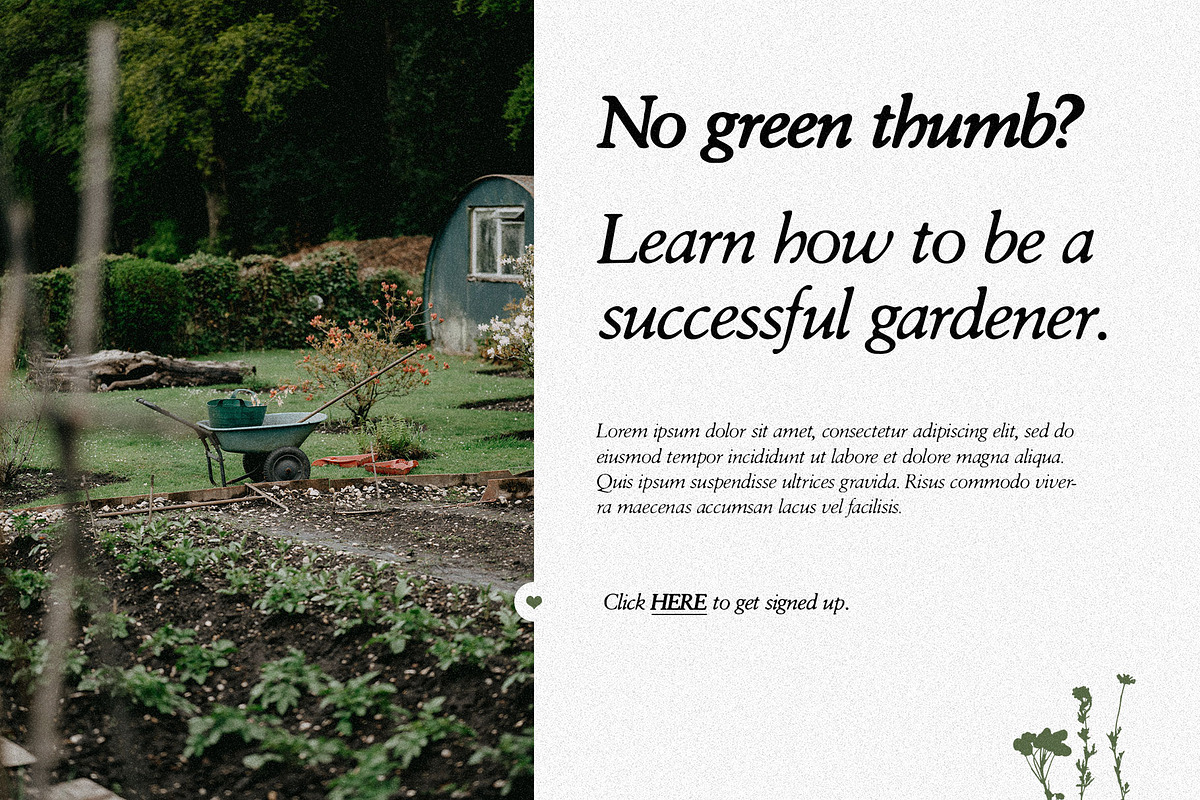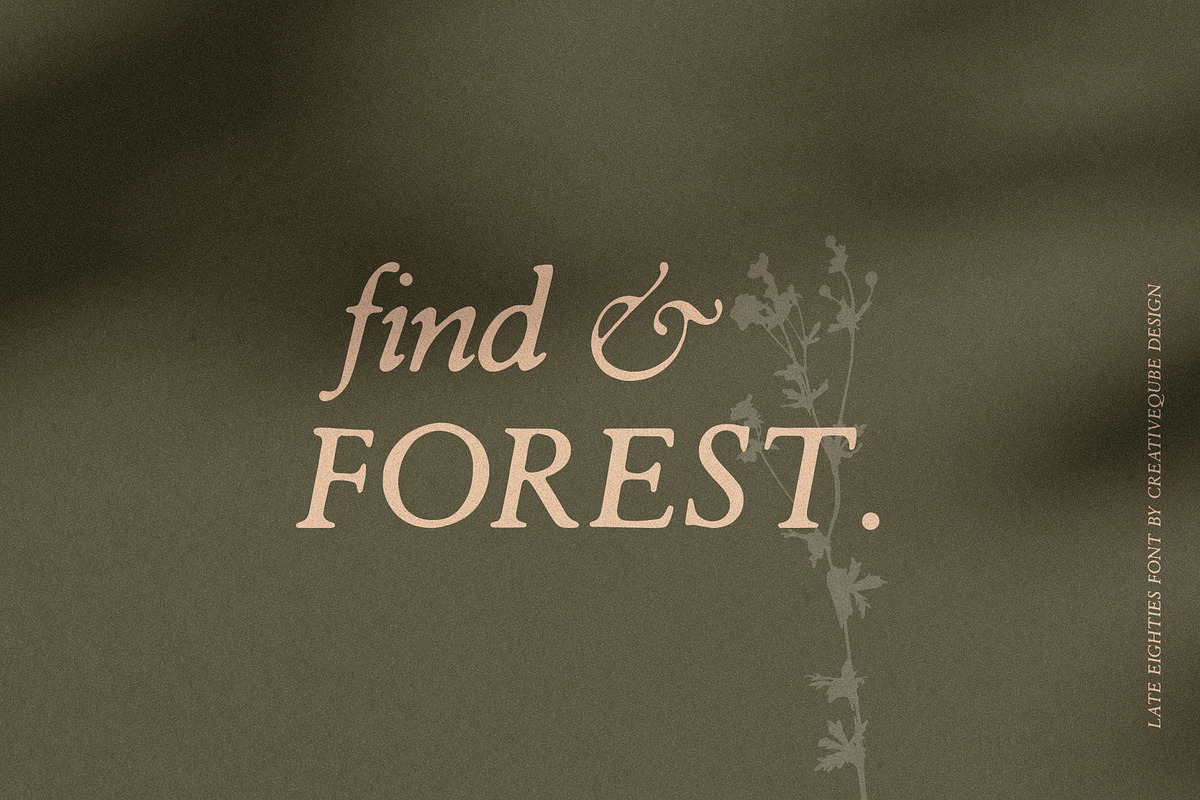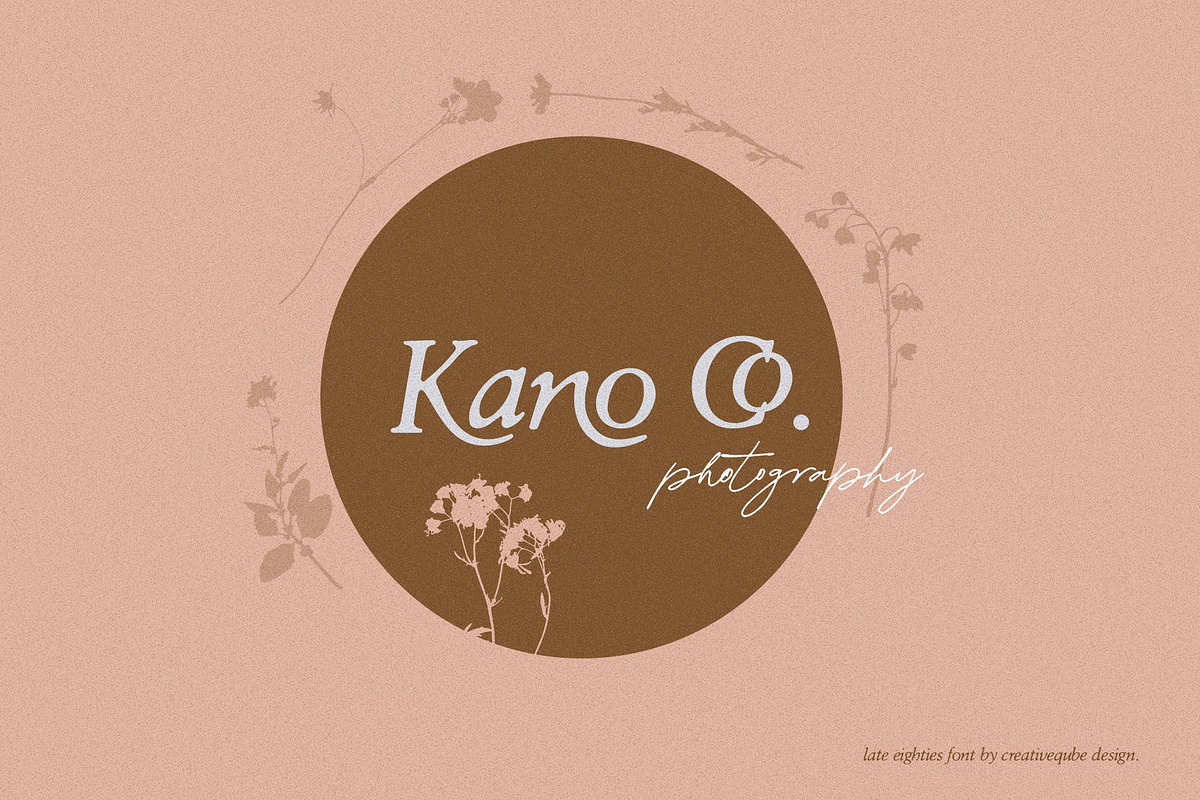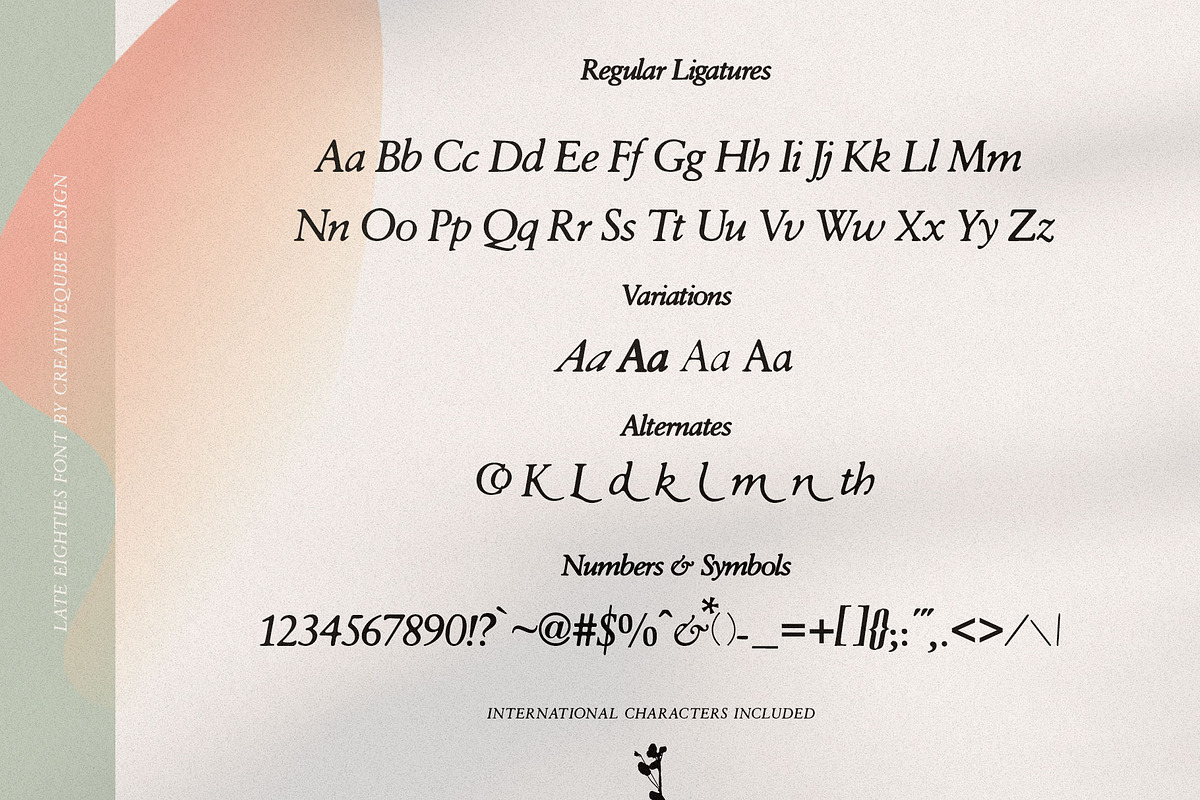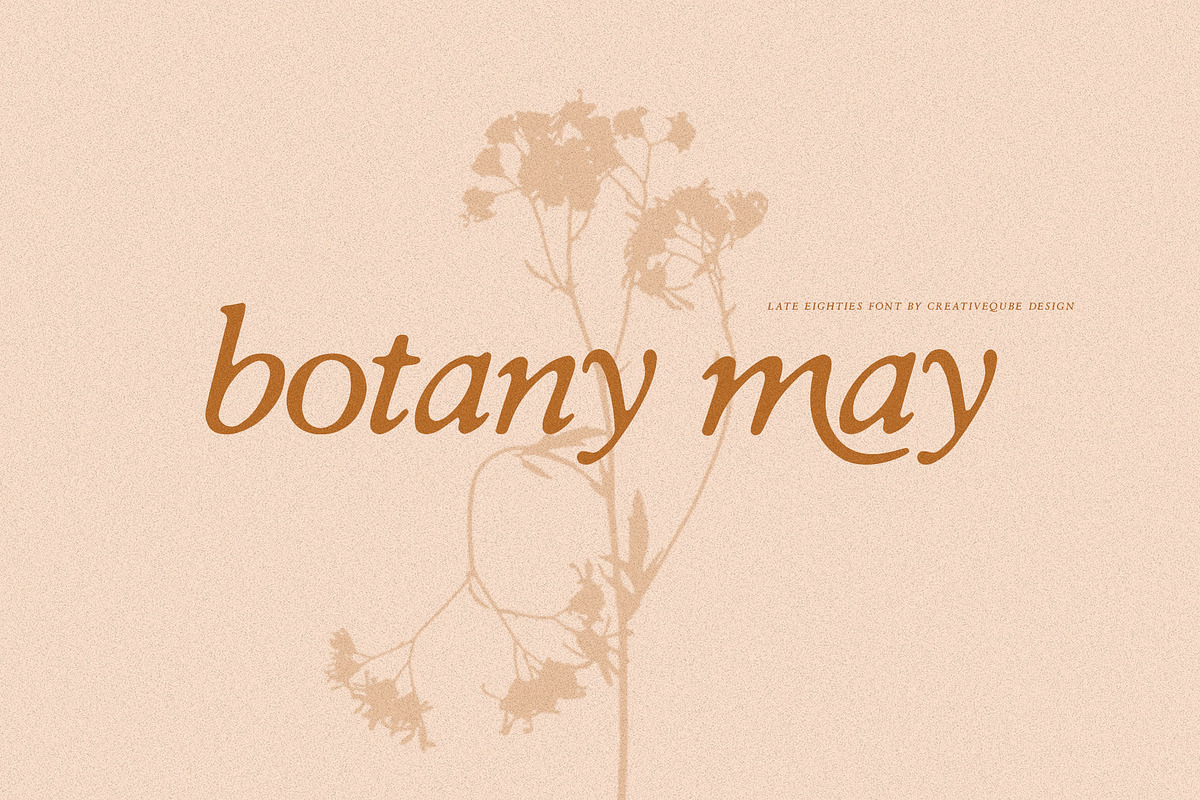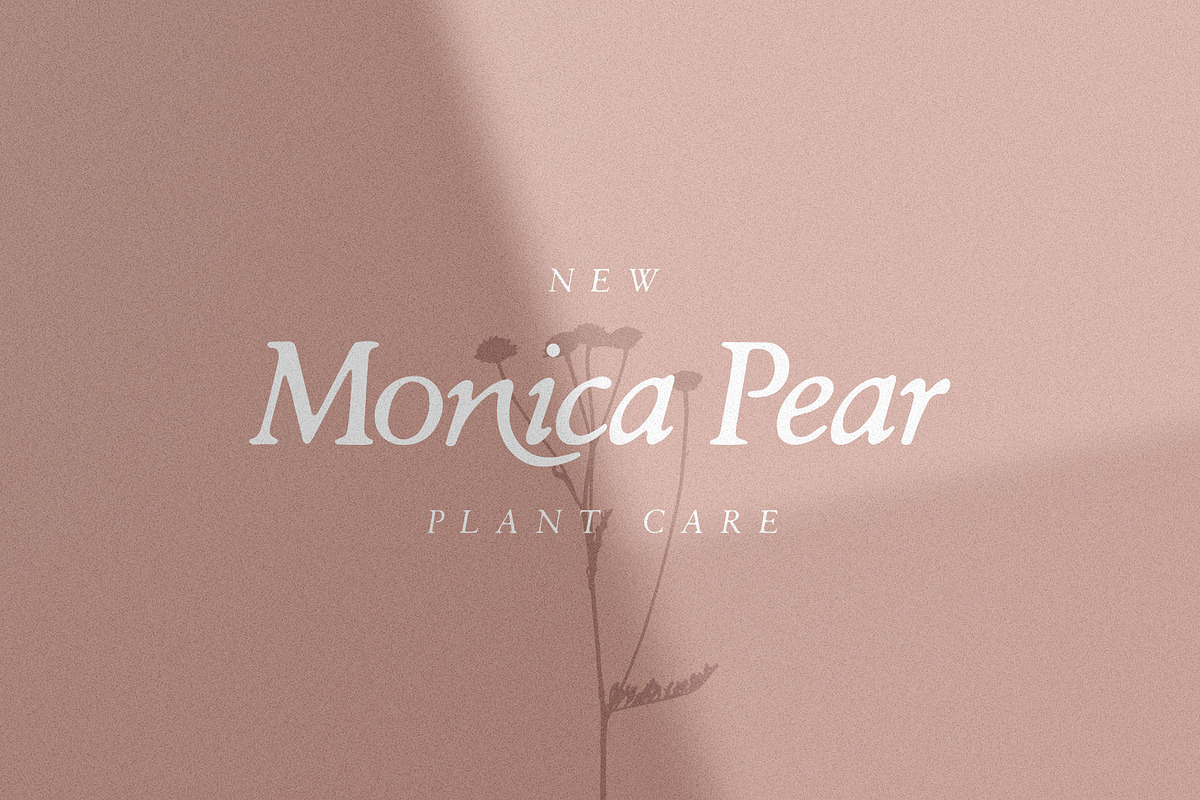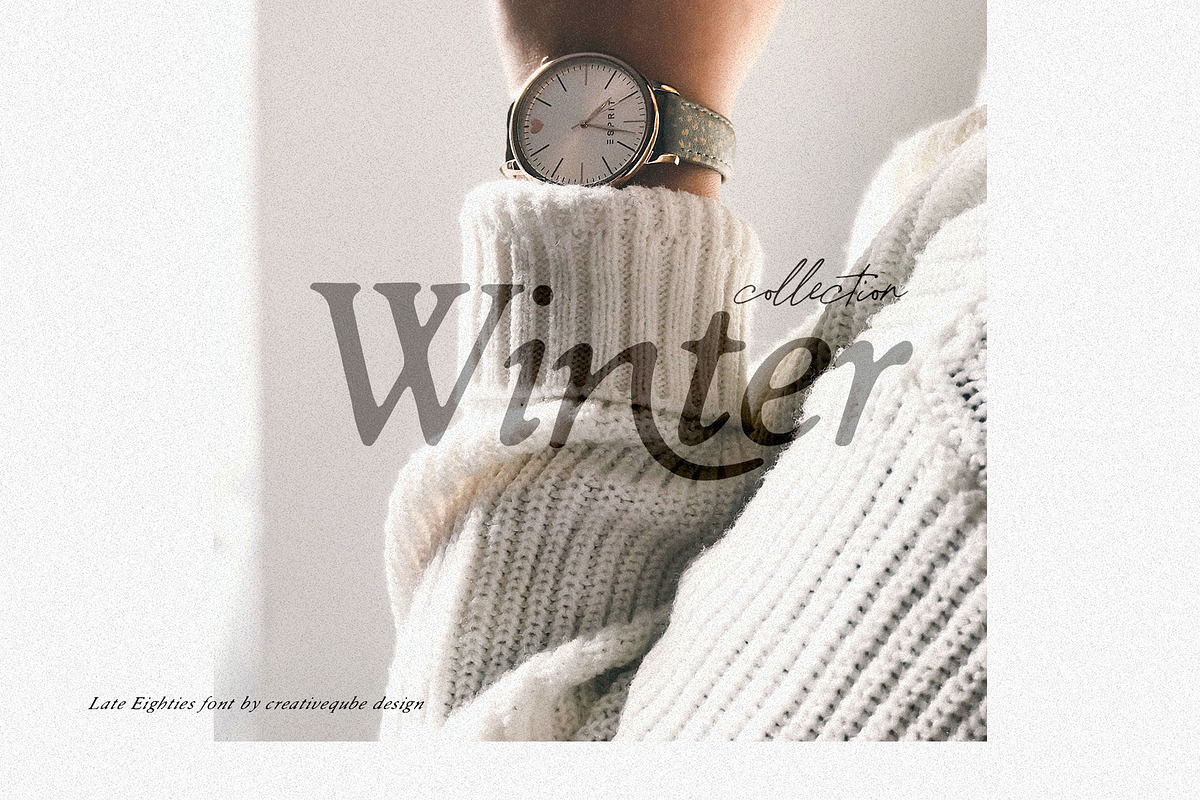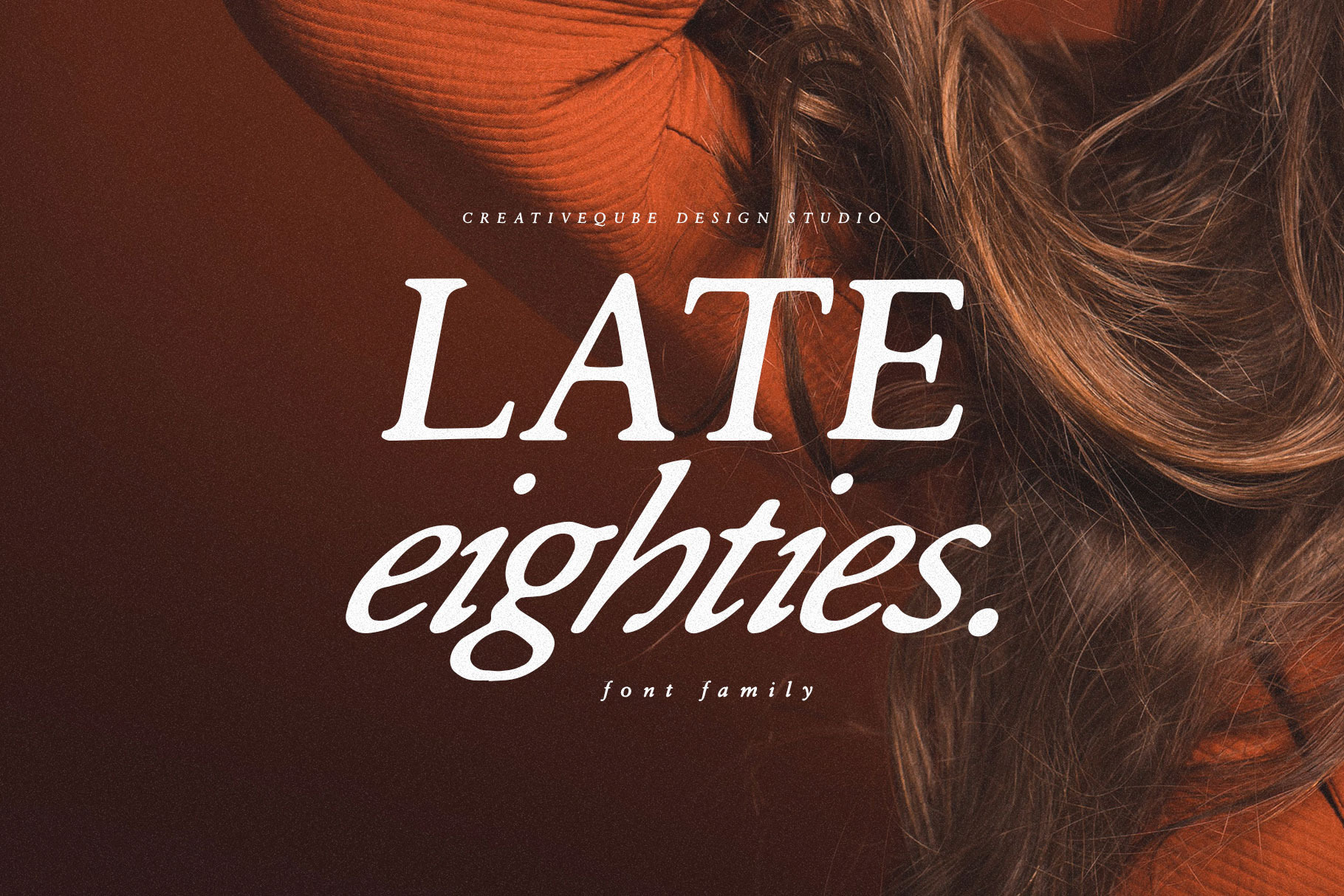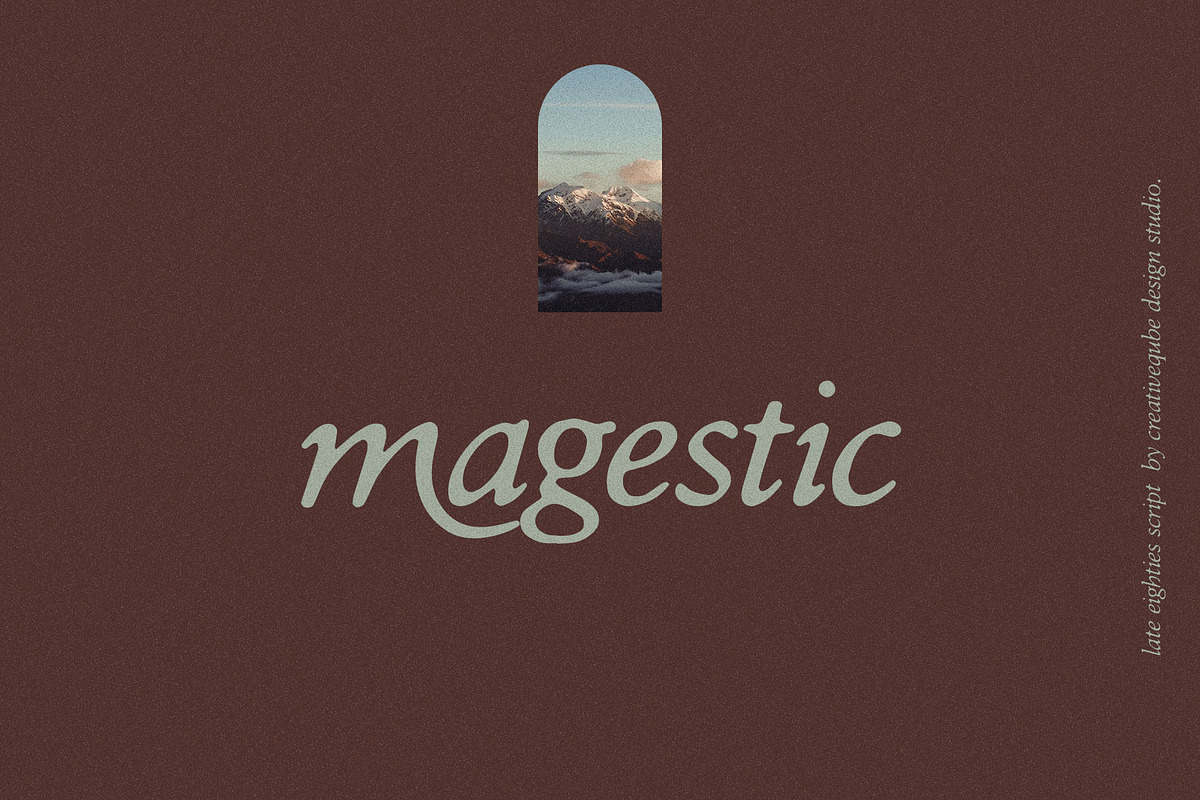
Late Eighties Font & Florals
Late Eighties is a vintage serif font that makes for stunning logos, quotes, wedding invites, blog posts, Instagram, and more! Included is 5 different variations including italics, Bold, Upright, & Light.
- Regular Serif
- Italics, Bold, Light, Upright
- Numbers + Punctuation
- International language support